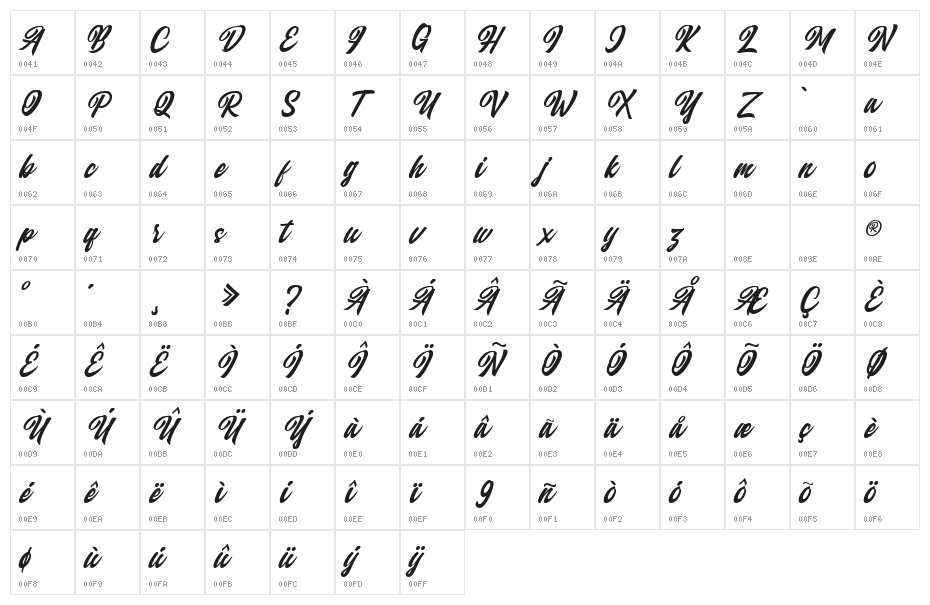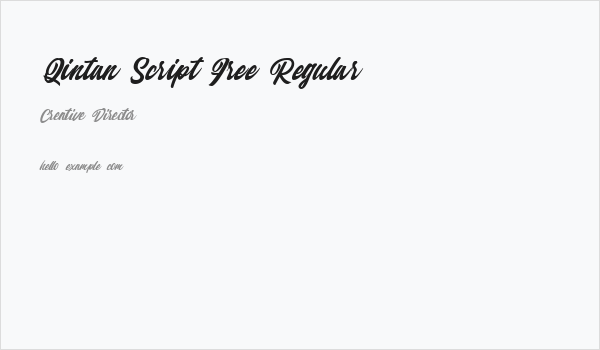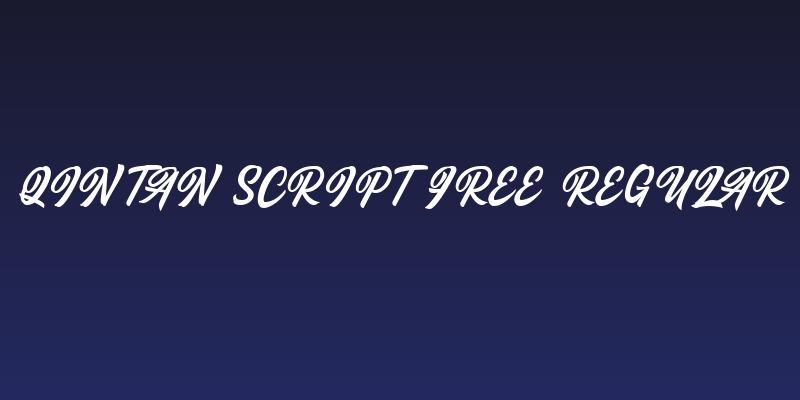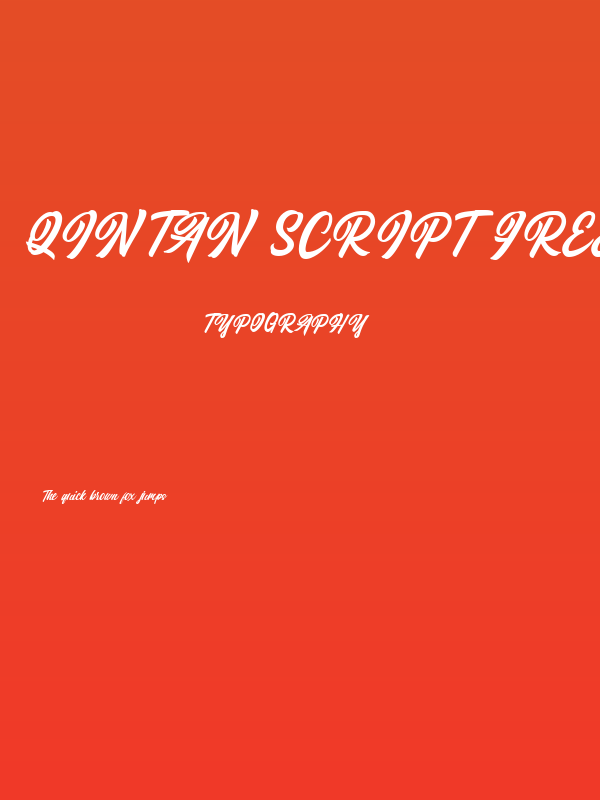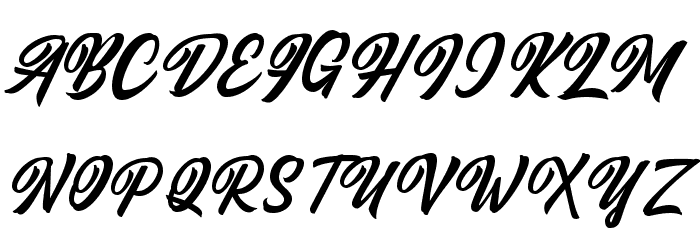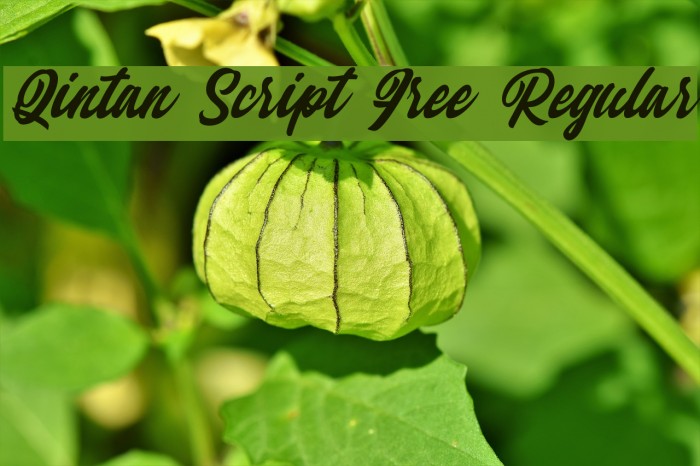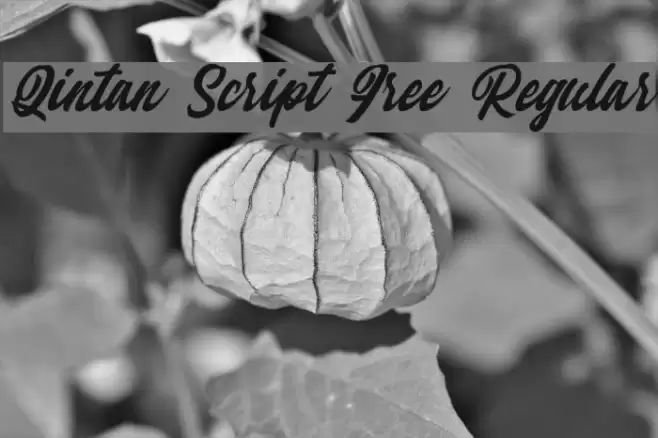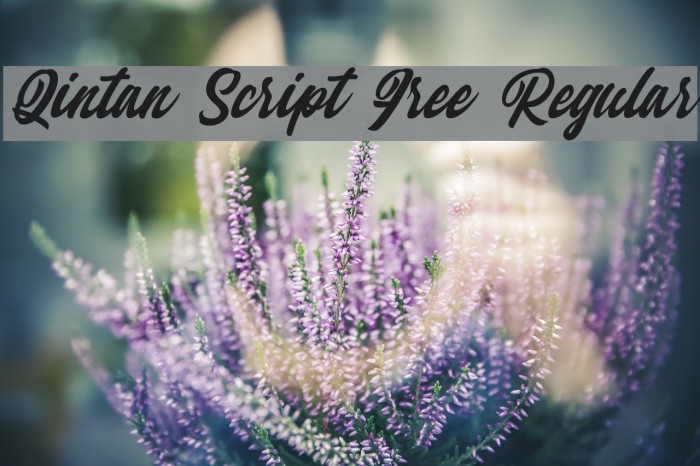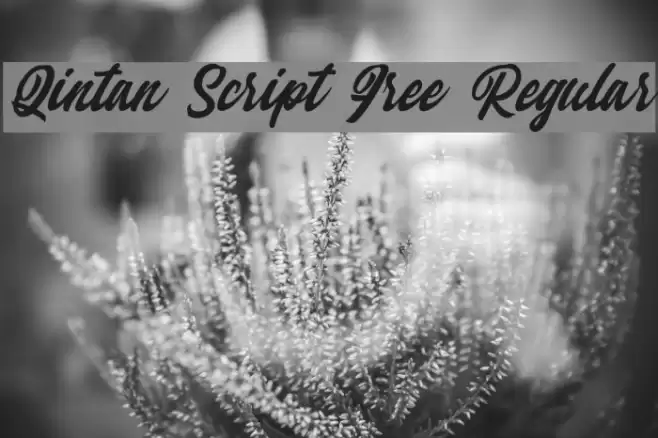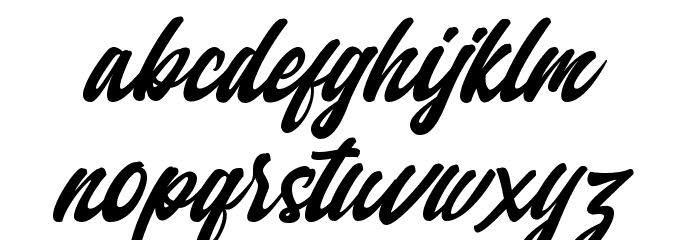
Qintan Script Free Regular Font
| Caso de uso | Logos, Invitations, Artistic projects |
| Proyectos propuestos | Ideal for wedding invitations, branding, greeting cards, and artistic projects that require a personal and elegant touch. |